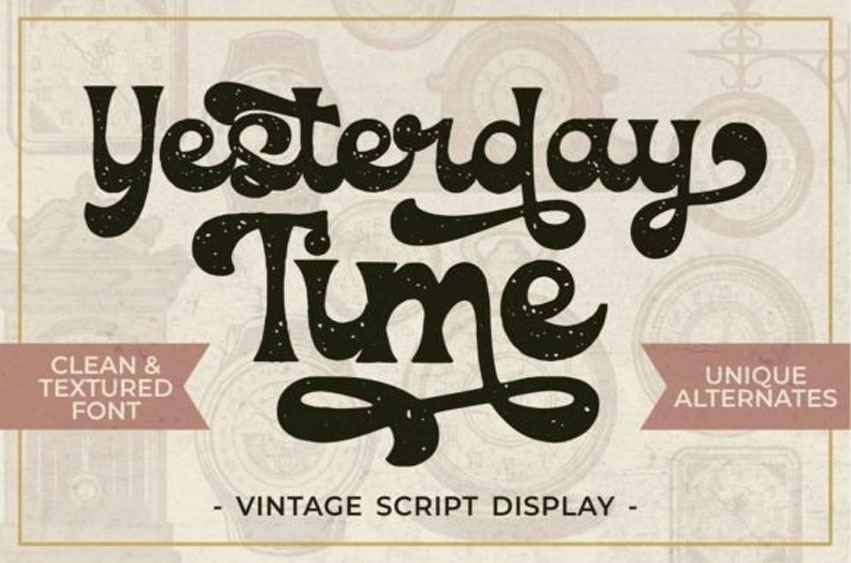
Yesterday Time Font Vintage Script Font. In this font, vintage and luxury/aesthetics combine beautifully, so you can use it in various projects with retro/vintage and luxury themes. Try it on logos, branding, posters, packaging, book covers, clothes/apparel, quotes, titles, and others.